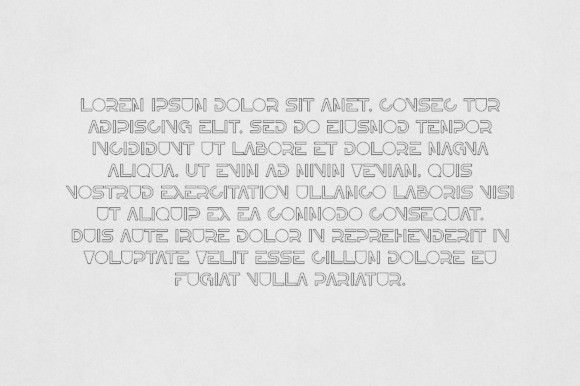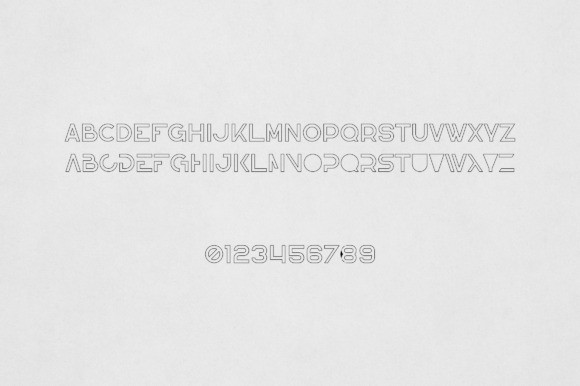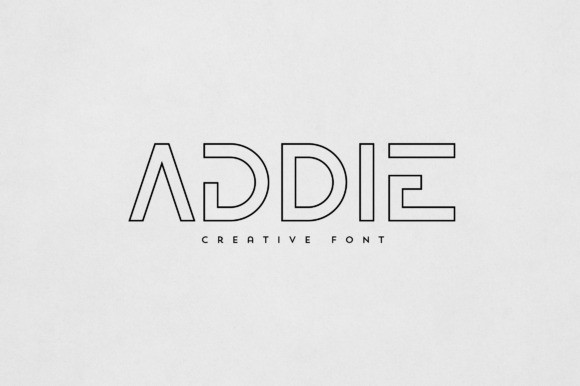
Addie Font
Addie Font is an elegant and versatile display font that will make your typography truly unique! It will enchant every logo, branding, headline, or plain text!